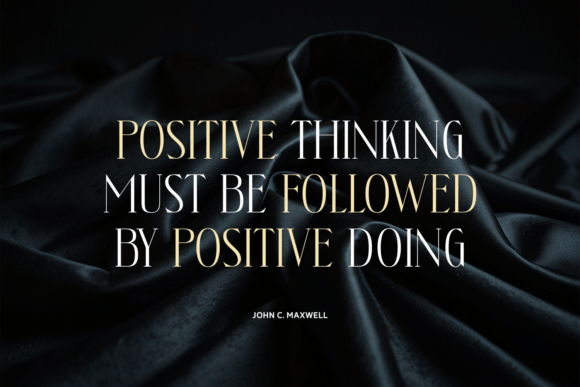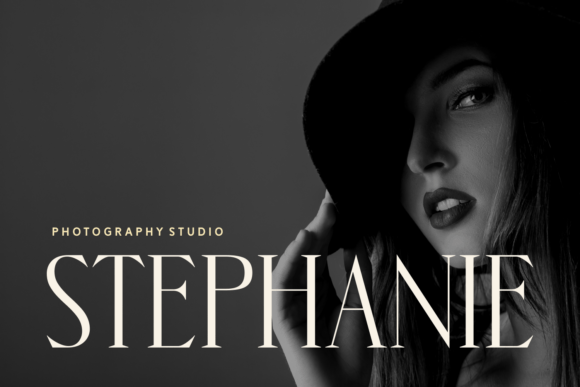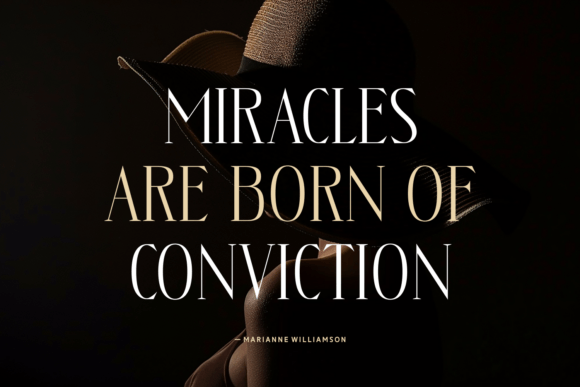
Ferone Font: Elevate Your Design with Elegance and Sophistication
In the world of typography, fonts play a crucial role in conveying the message and aesthetic of a design. Among the numerous fonts available, Ferone stands out as a modern serif font that has gained popularity for its clean lines, elegant design, and versatility. In this article, we’ll delve into the world of Ferone font, exploring its characteristics, uses, and benefits for designers and crafters.
The Essence of Ferone Font
Ferone is a modern serif font that strikes a perfect balance between classic and contemporary styles. Its clean lines, elegant design, and refined features make it an excellent choice for a wide range of applications, from headlines and titles to body text and creative projects. The font’s stylish letters add a touch of sophistication to any design, making it ideal for designers and crafters seeking to elevate their work.
Key Characteristics of Ferone Font
- Clean Lines: Ferone’s lines are sleek and uncomplicated, providing a crisp and modern look that works well in various design contexts.
- Elegant Design: The font’s elegant design makes it suitable for projects that require a touch of sophistication and refinement.
- Serif Style: Ferone’s serif style adds a classic touch to the font, making it perfect for designs that require a traditional feel with a modern twist.
- Versatility: Ferone is a versatile font that can be used for headlines, titles, body text, and creative projects, making it a valuable addition to any designer’s toolkit.
Uses of Ferone Font
Ferone’s versatility makes it suitable for a wide range of applications, including:
- Headlines and Titles: Ferone’s elegant design and clean lines make it perfect for headlines and titles that require a touch of sophistication.
- Body Text: The font’s readability and classic feel make it suitable for body text, providing a comfortable reading experience for readers.
- Branding and Identity: Ferone can be used to create a strong brand identity, adding a touch of elegance and refinement to logos, business cards, and other marketing materials.
- Creative Projects: The font’s versatility makes it ideal for creative projects, such as posters, flyers, brochures, and digital art.
Benefits of Using Ferone Font
Using Ferone font offers several benefits for designers and crafters, including:
- Elegance and Sophistication: Ferone adds a touch of elegance and sophistication to any design, making it perfect for projects that require a refined aesthetic.
- Versatility: The font’s versatility makes it suitable for a wide range of applications, saving designers time and effort in searching for multiple fonts.
- Readability: Ferone’s clean lines and classic design ensure excellent readability, providing a comfortable reading experience for readers.
- Unique Style: The font’s unique style sets it apart from other serif fonts, allowing designers to create distinctive and memorable designs.
Tips for Using Ferone Font
To get the most out of Ferone font, consider the following tips:
- Experiment with Font Sizes: Ferone works well in various font sizes, from large headlines to smaller body text.
- Pair with Other Fonts: The font pairs well with other serif and sans-serif fonts, allowing designers to create visually appealing combinations.
- Use in Digital and Print Designs: Ferone is suitable for both digital and print designs, making it a versatile font for various applications.
Ferone font is a modern serif font that offers elegance, sophistication, and versatility, making it an excellent choice for designers and crafters. Its clean lines, elegant design, and refined features make it suitable for a wide range of applications, from headlines and titles to body text and creative projects. By incorporating Ferone into your design toolkit, you’ll be able to elevate your work and create stunning designs that leave a lasting impression.